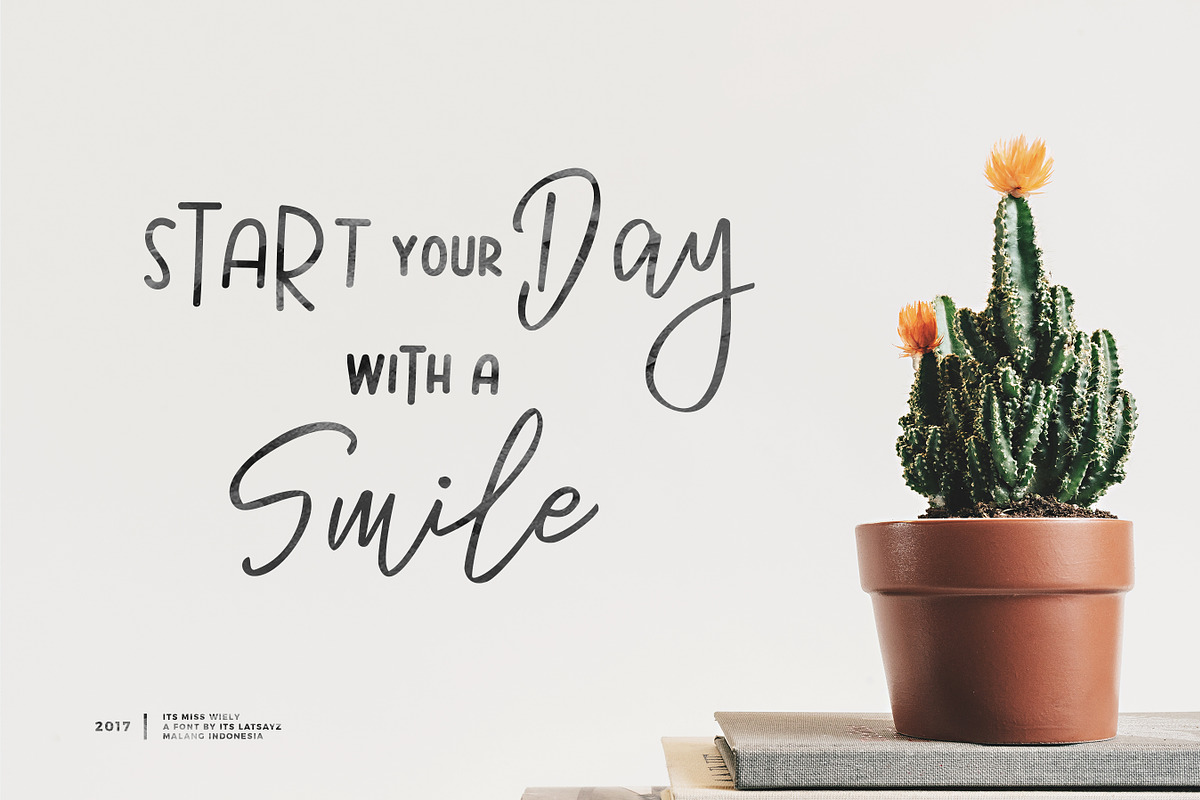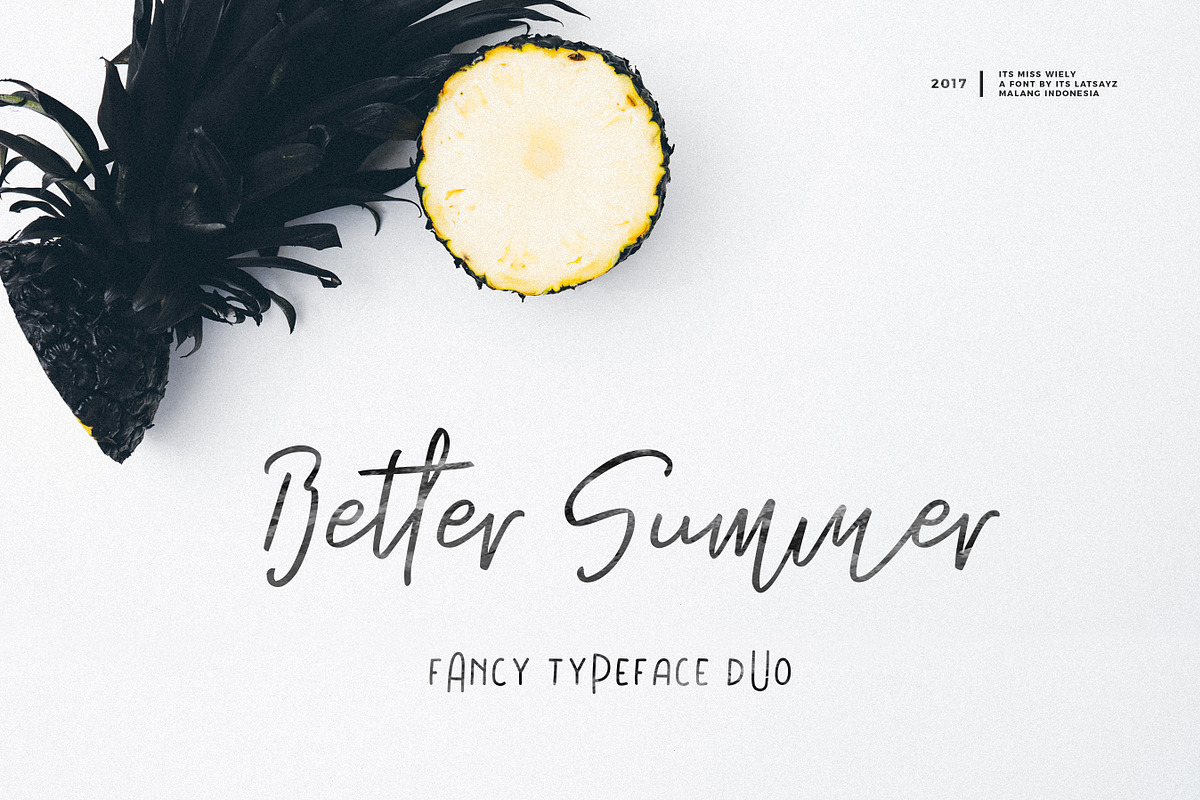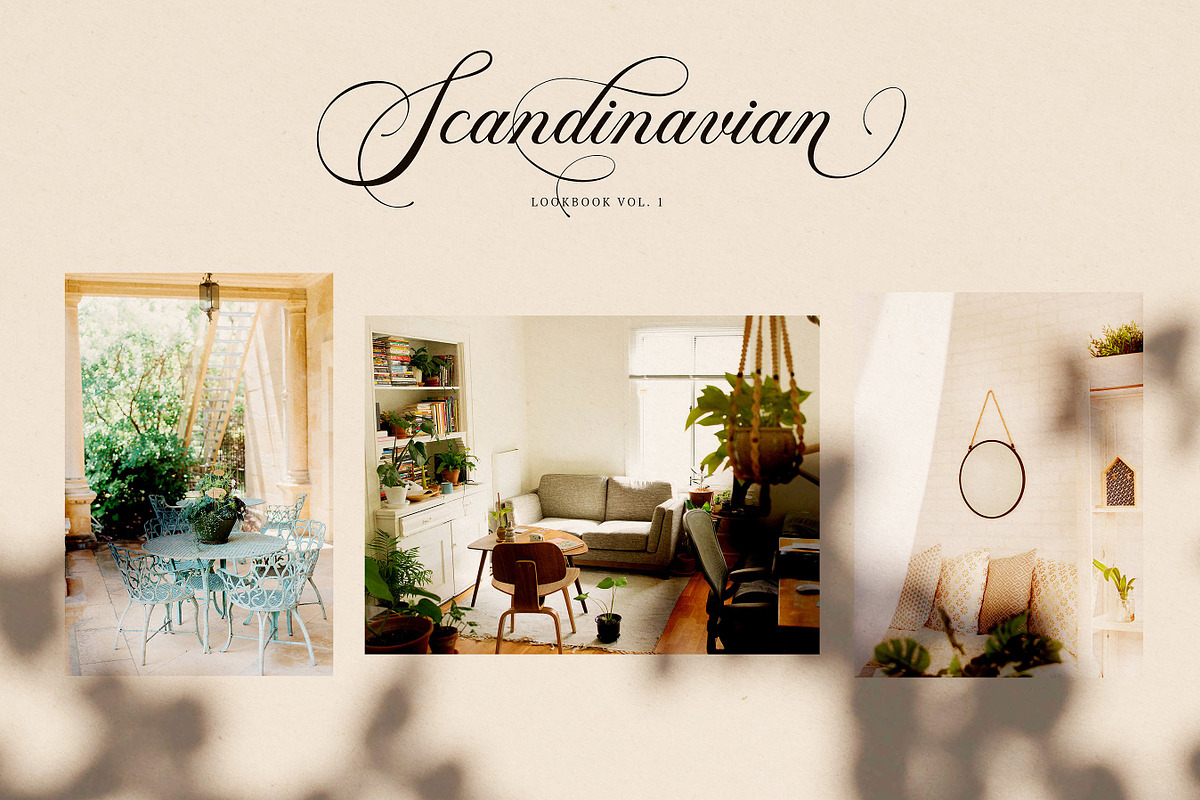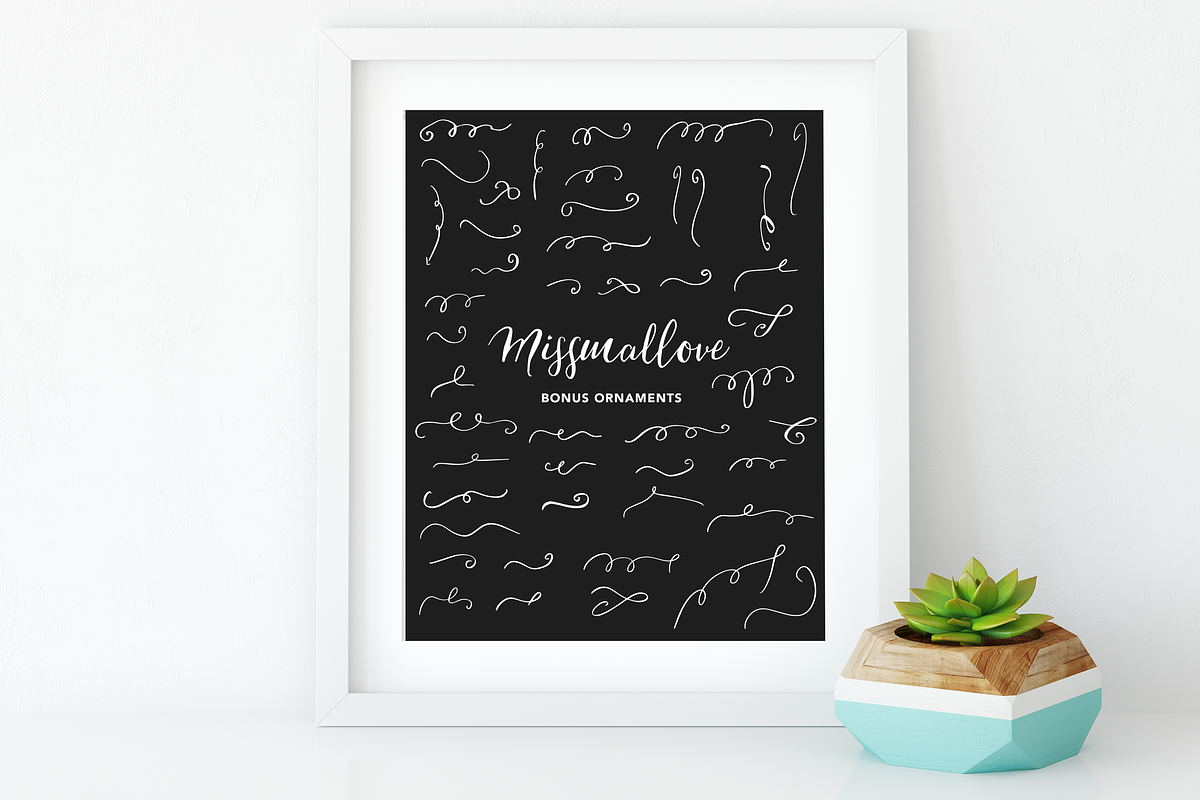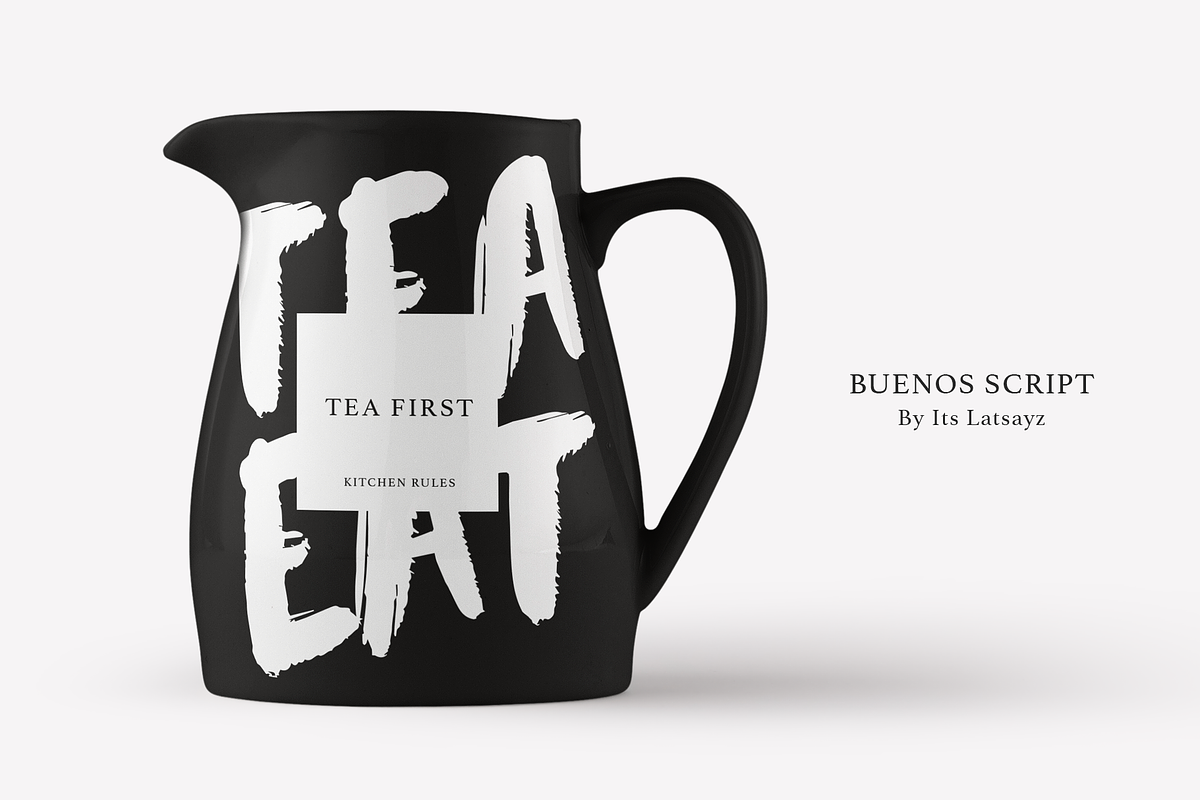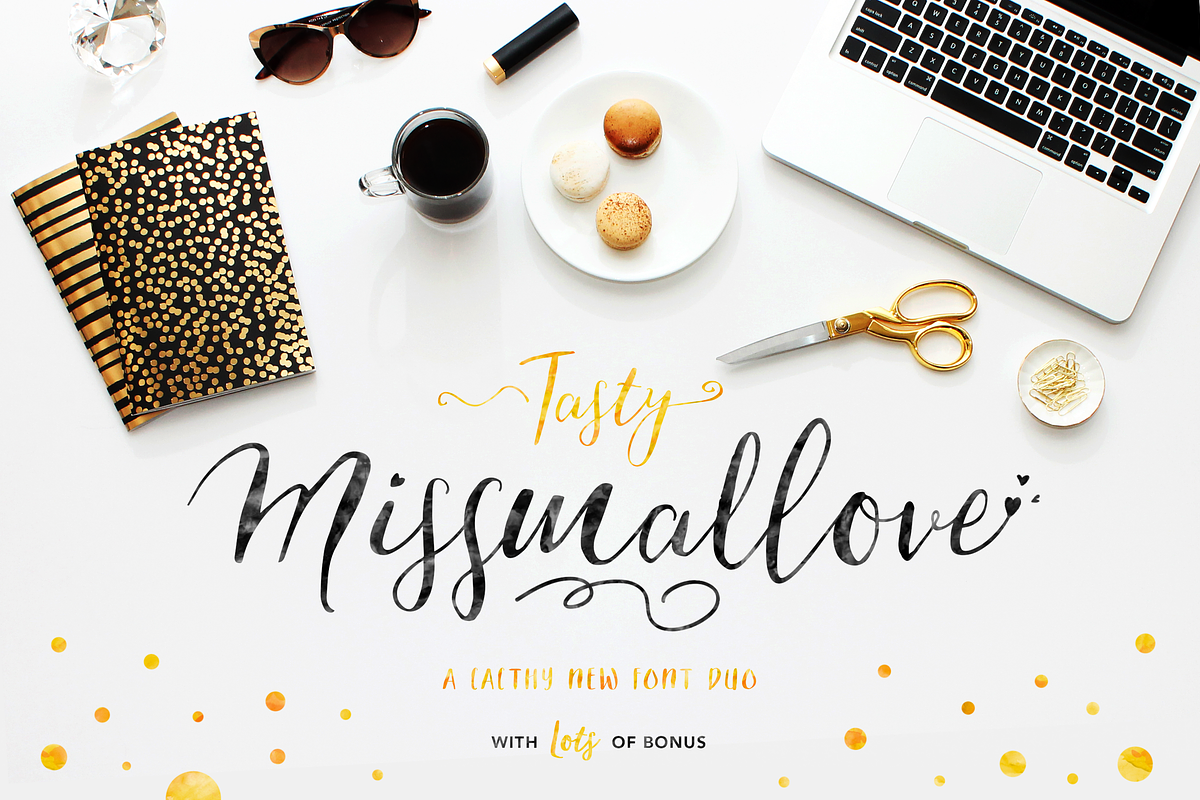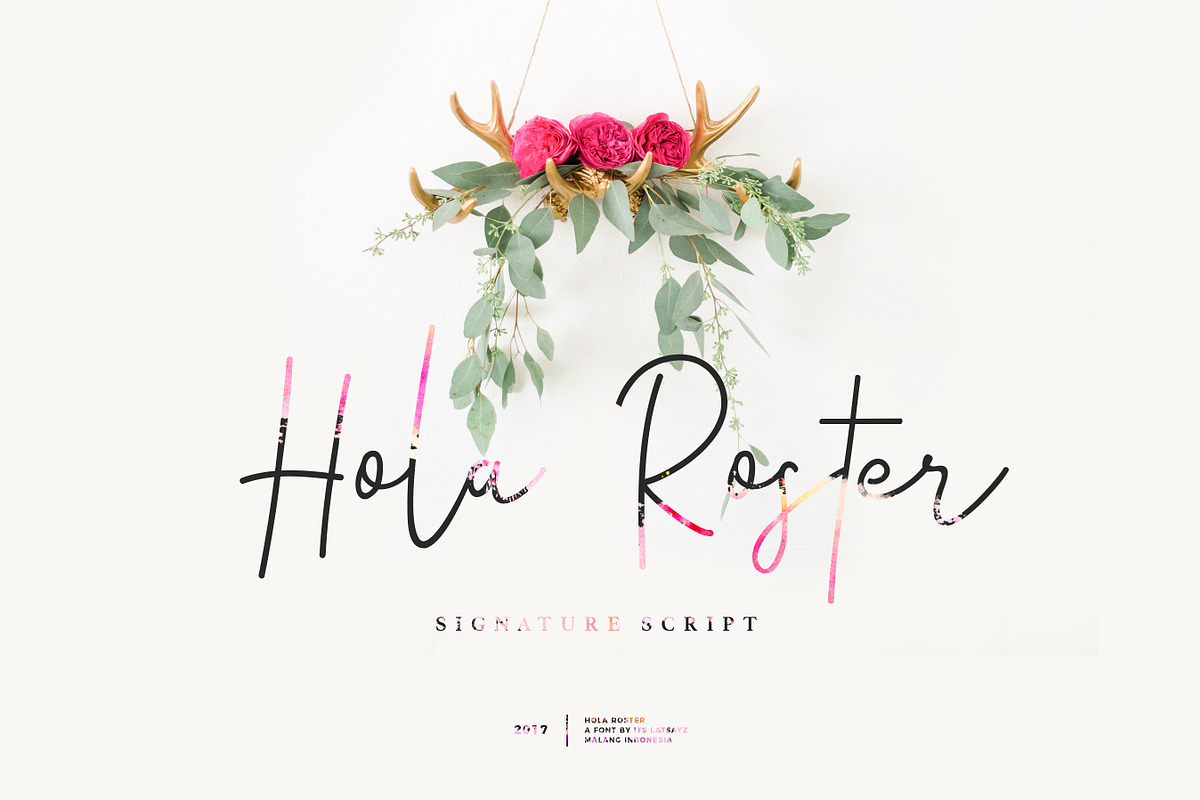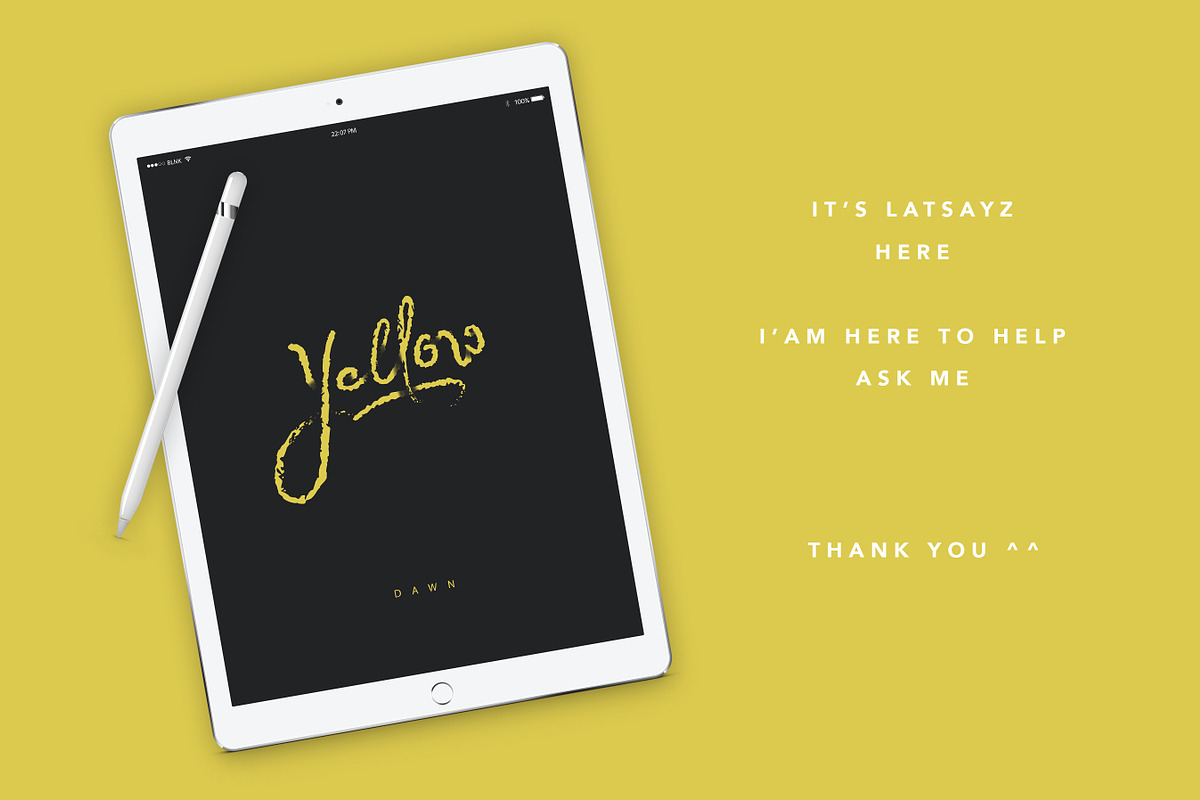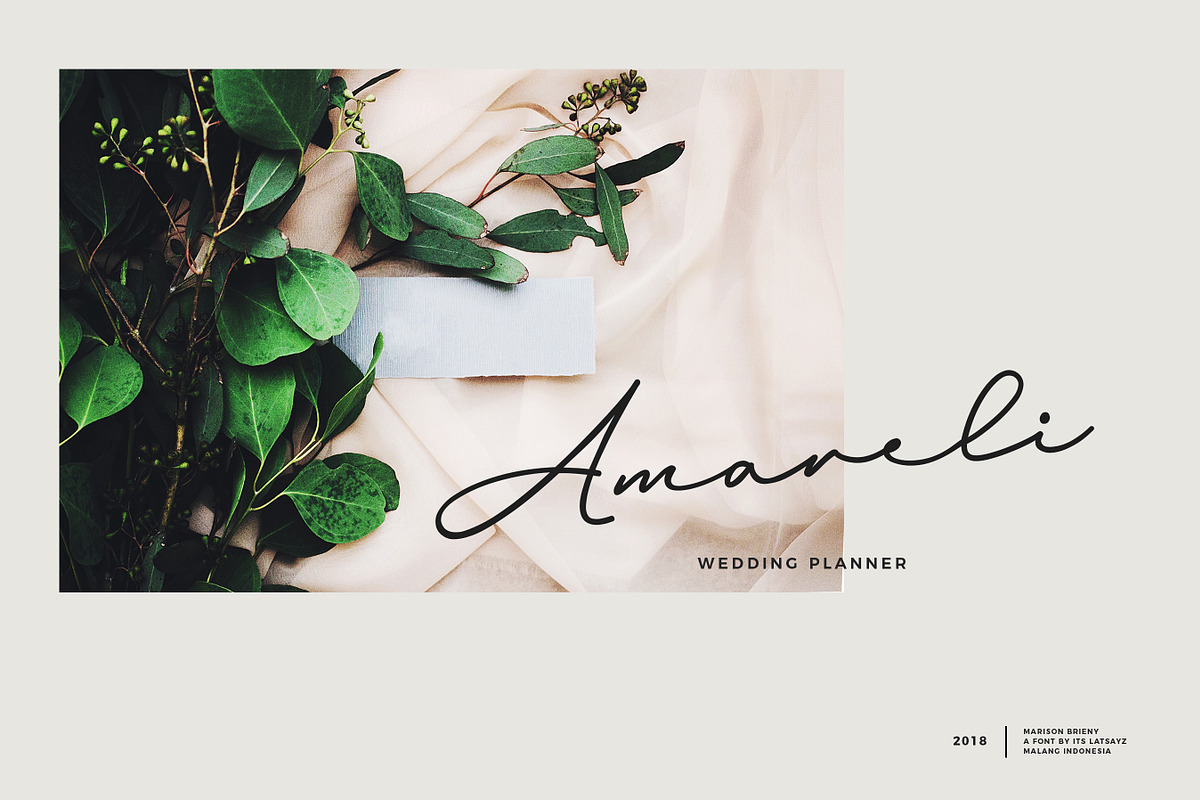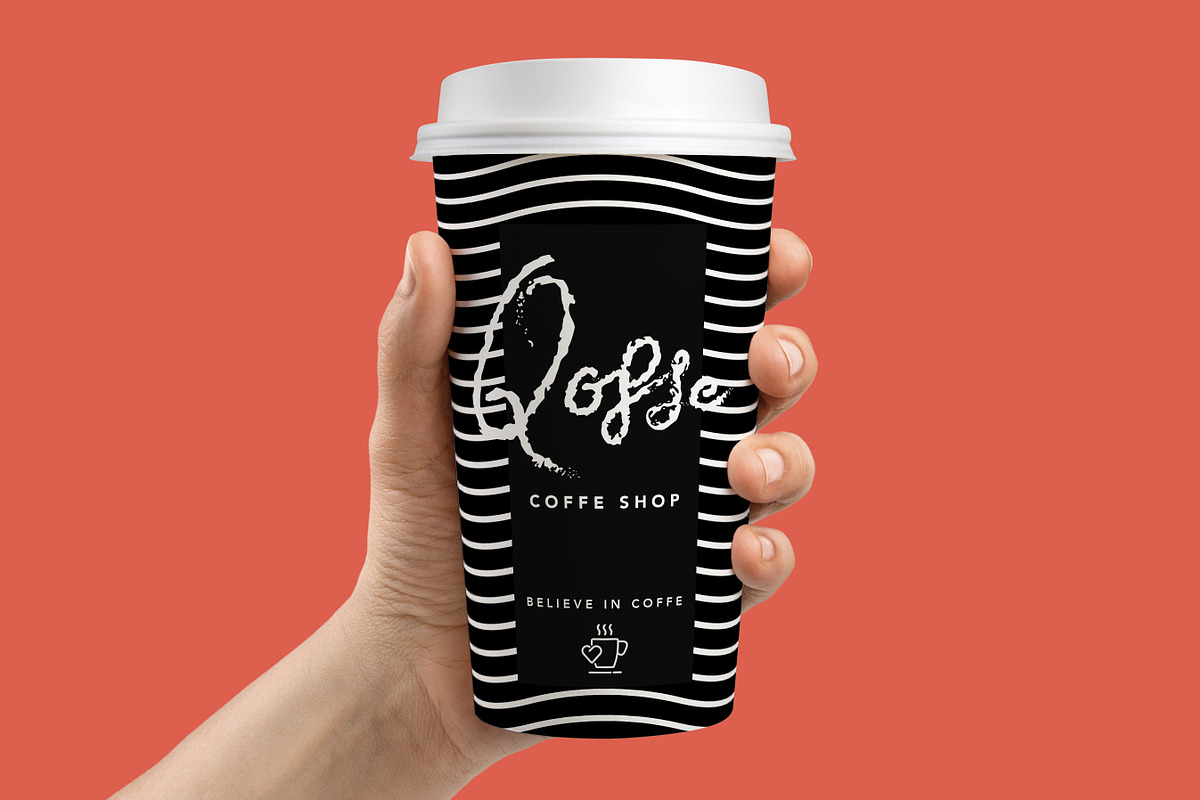
Handlettered Font Bundle
Handlettered Font Bundle - by ** Its Latsayz **
This Bundle is great for wedding, event, invitation, escort card, table number, header menus, display, logos, slider blog, custom address, stamps, packaging, greeting card, etc